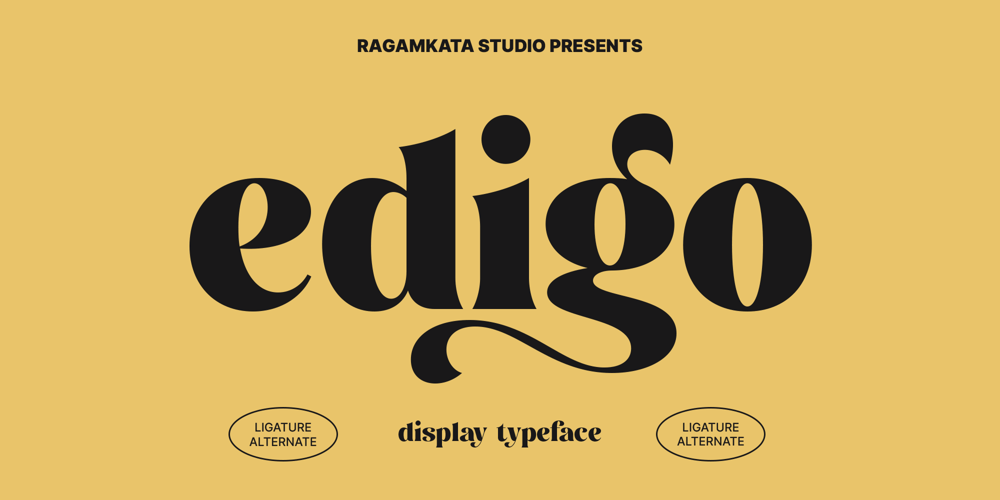
Edigo
Edigo font
Edigo Font Family was designed by Yogiswhara Dio Prakoso Riadi and published by RagamKata. Edigo contains 1 styles and family package options. Introducing Edigo – Where Modernity Meets Retro Chic in Display Typography! 🌟✨Edigo is more than just a font; it’s a bridge between the past and the present, blending retro charm with contemporary flair. Crafted for designers seeking the perfect fusion of nostalgia and innovation, Edigo is the epitome of With its bold strokes and vintage-inspired curves, Edigo brings a touch of classic elegance to any project. Whether you’re designing logos, headlines, or posters, this modern retro display font is sure to make a statement in today’s design landscape. Elevate your designs to new heights with Edigo, the font that embodies the best of both worlds. Join the revolution in display typography and unleash your creativity with Edigo! Features :- Ligatures & Alternates- Letters, numbers, symbols, and punctuation- No special software is required to use this typeface even work in Canva- Multilingual SupportPlease contact us if you have any questions. Enjoy crafting and thanks for supporting us!Thank you.